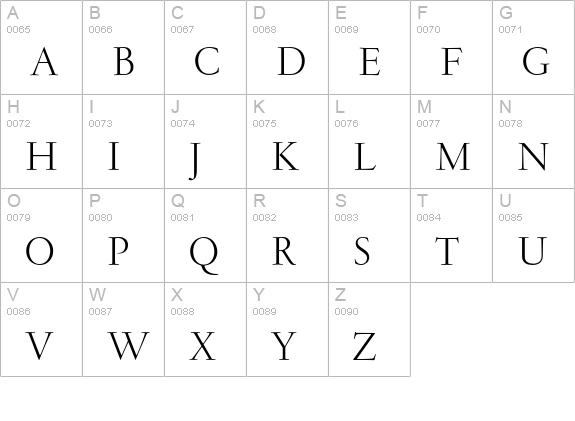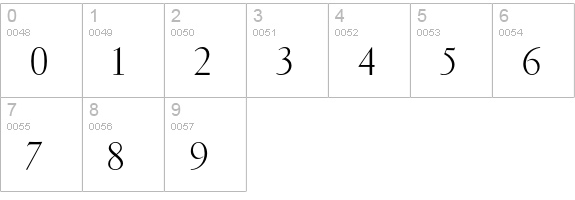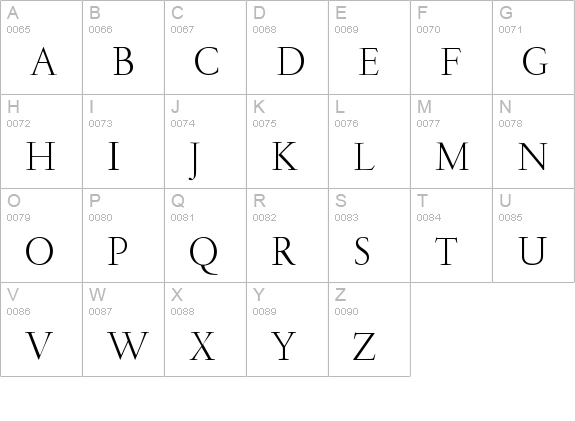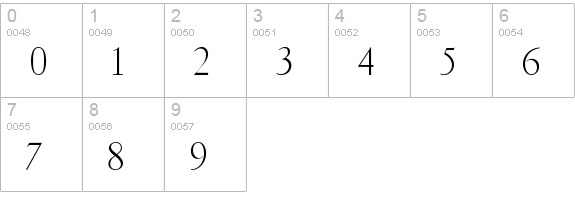
GaramondLight-Roman Font Details
GaramondLight-Roman is a classic and timeless font that exudes elegance and sophistication. Its slender serifs and delicate lines make it perfect for creating elegant designs and conveying a sense of refinement. The GaramondLight-Roman font is versatile and can be used for a wide range of projects, from invitations to branding and everything in between. One of the best things about the GaramondLight-Roman font is that it is available for free download at FontsMarket.com. This means that you can easily access this beautiful font and incorporate it into your projects without any cost. Whether you are a designer looking to add a touch of class to your creations or a business owner wanting to elevate your brand, GaramondLight-Roman is the perfect choice. Download it today and start creating stunning designs with this exquisite font.